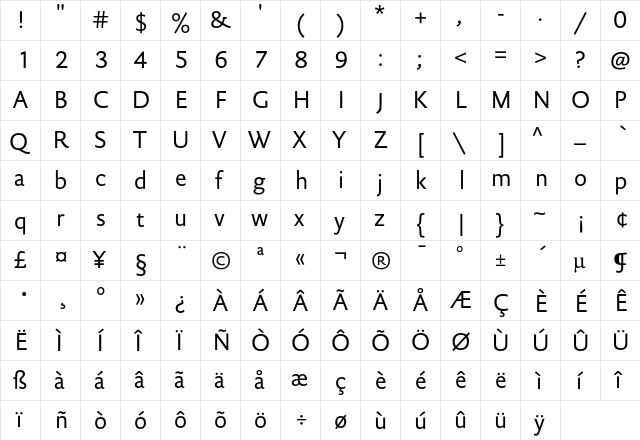
DTLDocumentaSansT Regular
Design Context for DTLDocumentaSansT Typeface
DTLDocumentaSansT is a composed and adaptable typeface that performs quietly and consistently across a wide range of design contexts.